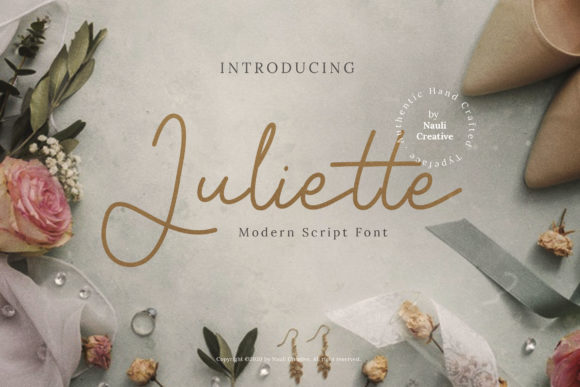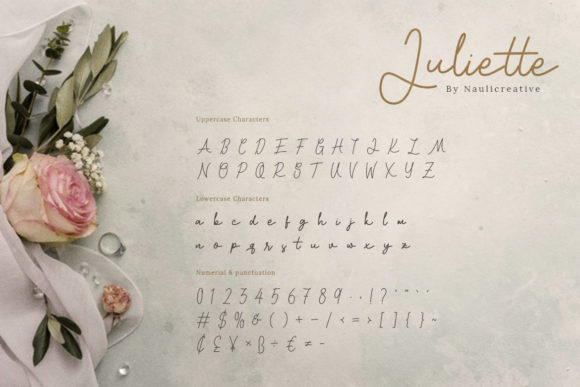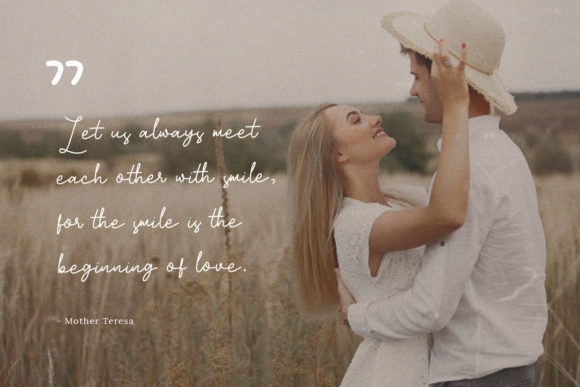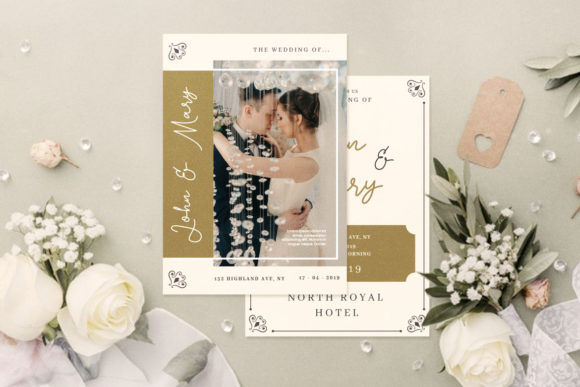
About Juliette Font
Juliette is a modern and elegant script font. Add this beautiful font to each of your creative ideas and notice how it makes them stand out!